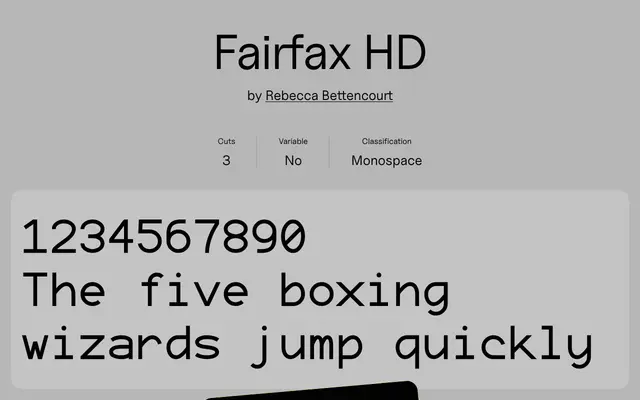
Fairfax HD
A monospaced typeface by Rebecca Bettencourt, released in three cuts under the SIL Open Font Licence.
Available in three cuts with no variable axis, Fairfax HD is a fixed-width design suited to coding and terminal environments. Released under the SIL Open Font Licence 1.1, it is free for both commercial and personal use, with modification and redistribution permitted subject to additional conditions.
Explicitly classified as Monospace by the foundry; a fixed-width typeface with no variable axis.